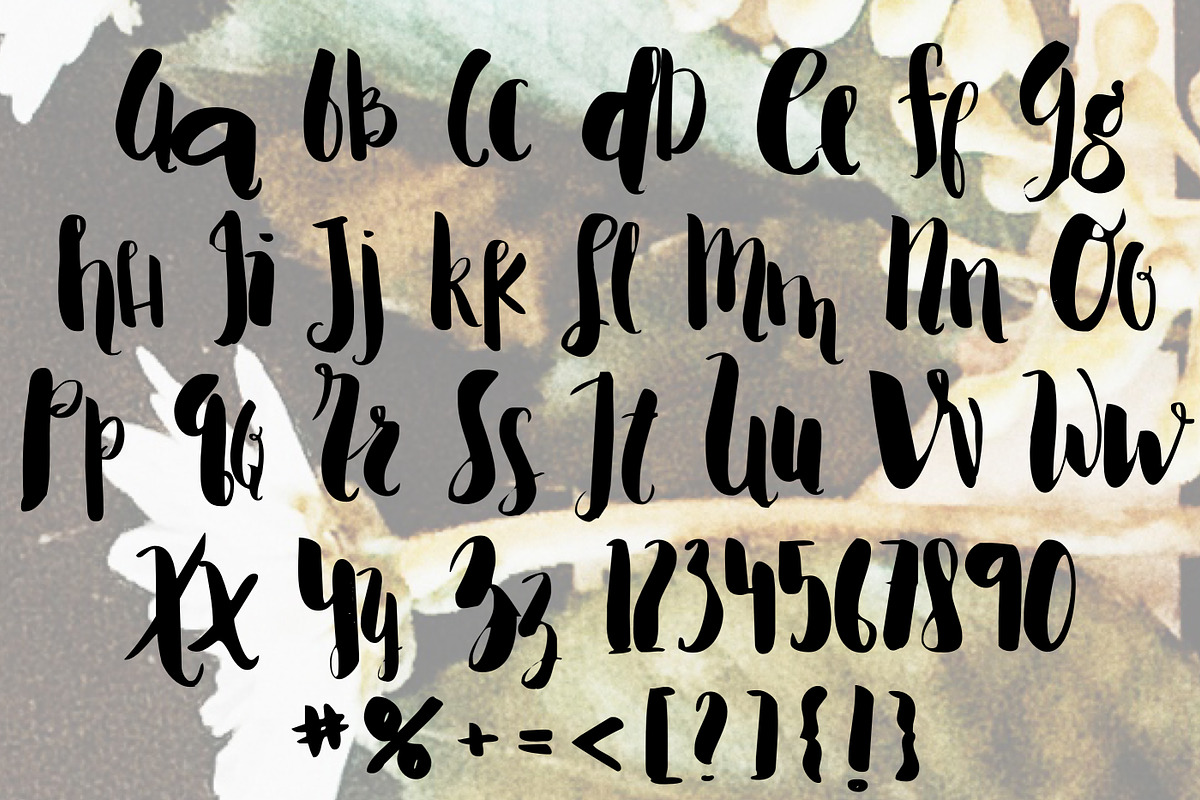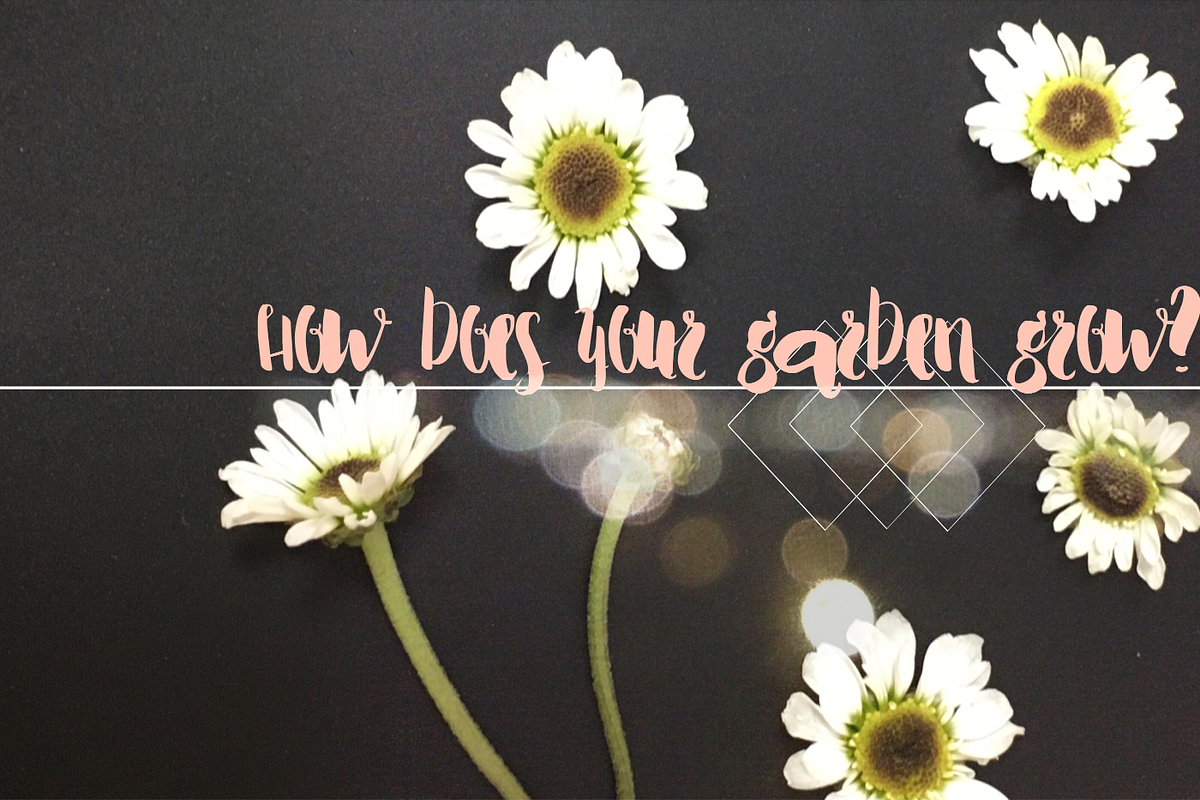
NANCY Brush Lettered Font
NANCY Brush Lettered Font by Rhonna Designs is a font selected for branding, posters, packaging, typography.
Why NANCY Brush Lettered Font is worth a look
NANCY Brush Lettered Font by Rhonna Designs fits naturally into Branding, posters, packaging, typography.